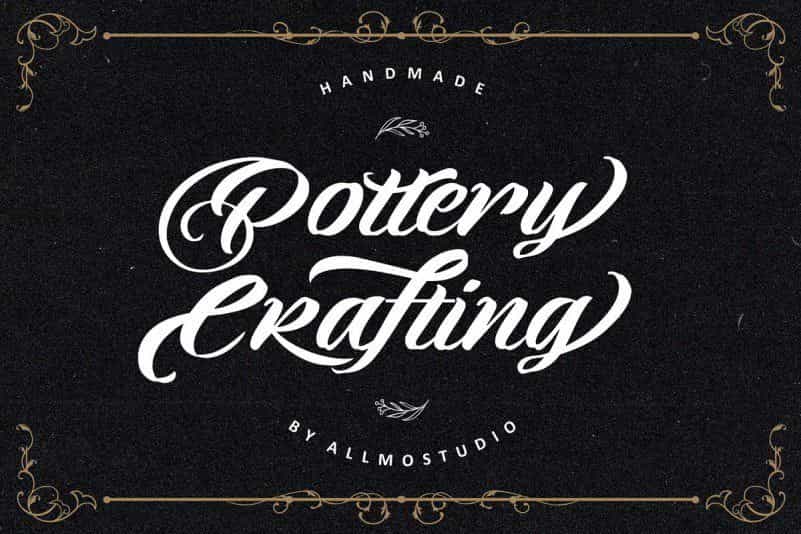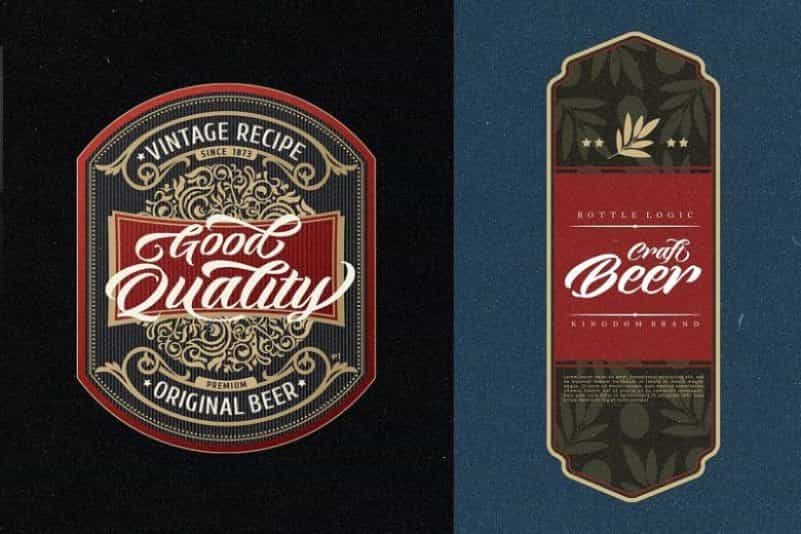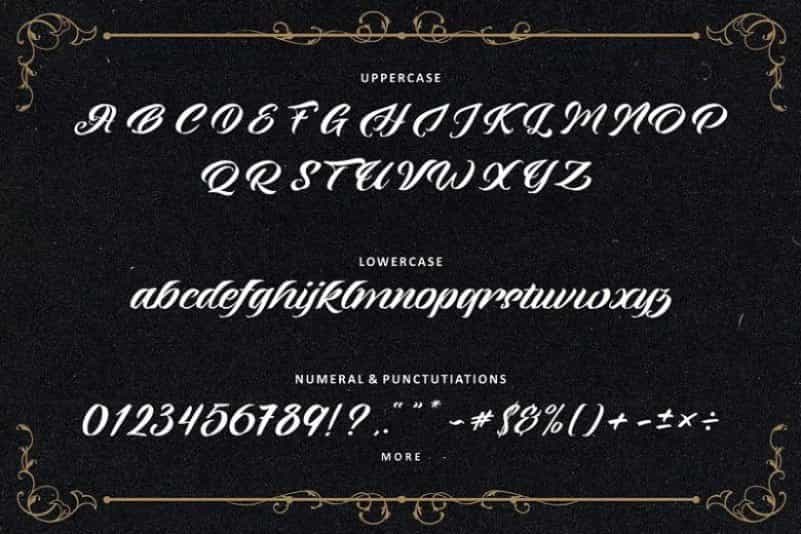
Introducing Pottery Crafting Font. A design with a calligraphy feel that has a retro script style more fitting for the 70s. The style of the shirt was influenced by funk, disco and rockabilly music posters and album covers with playfulness as its essence.